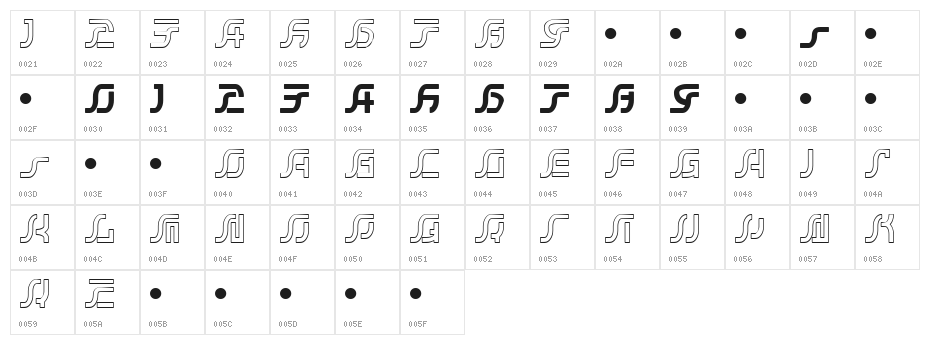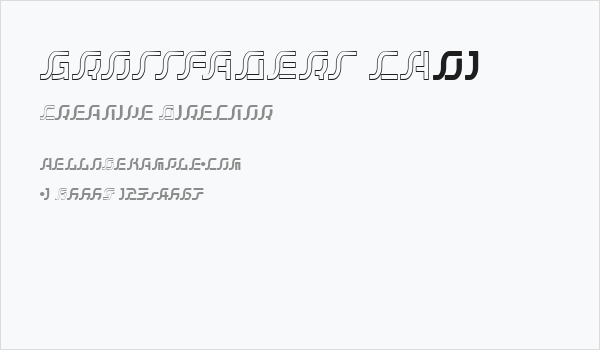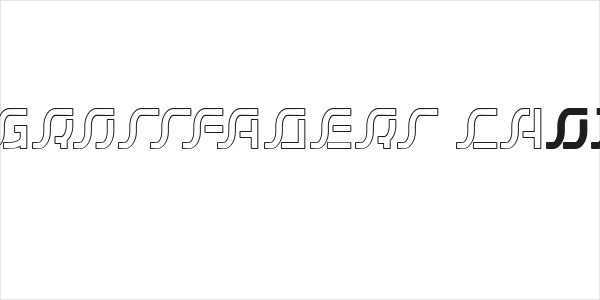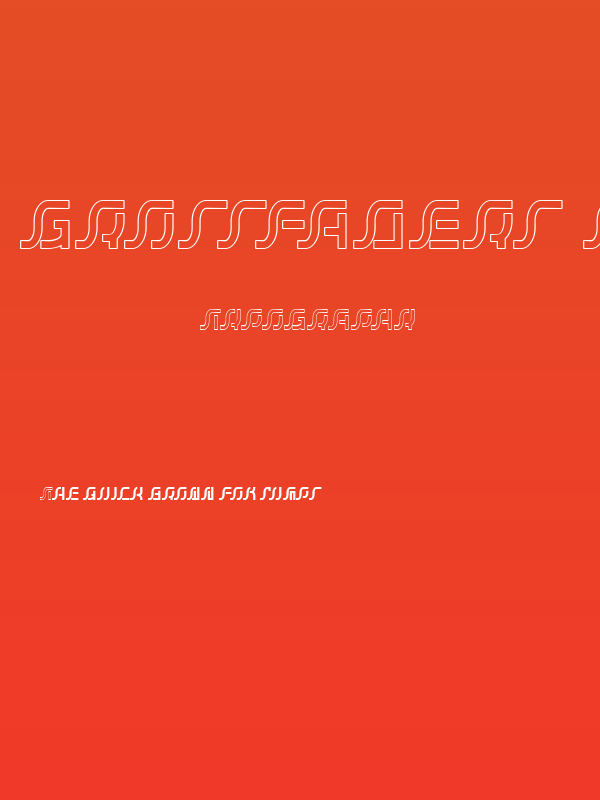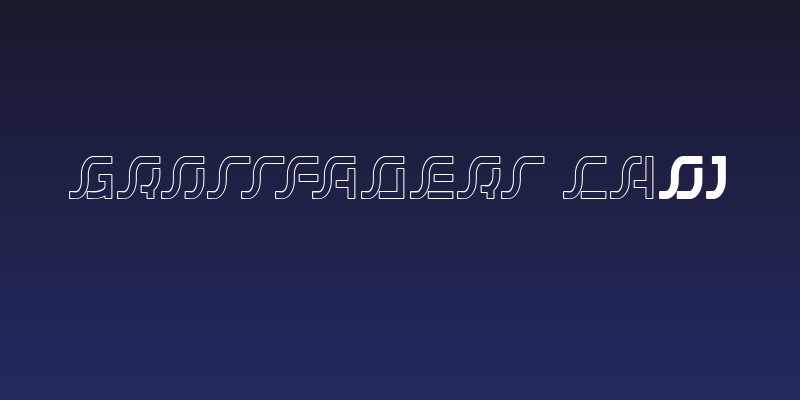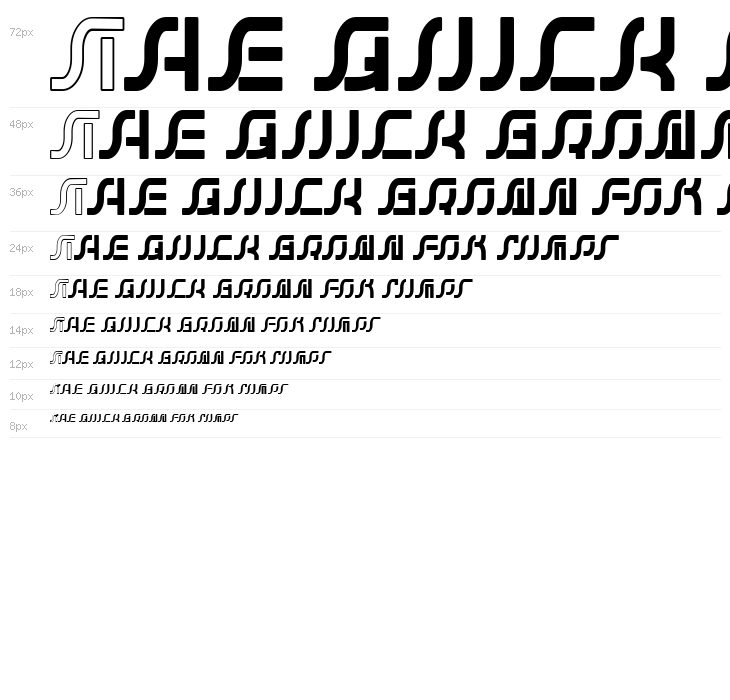
GROSSFADERS CH01 Font
GROSSFADERS CH01 Description
This font features a futuristic and geometric design, characterized by its bold and structured letterforms. The characters are composed of thick lines with rounded edges, creating a sense of movement and modernity. The uppercase and lowercase letters share a consistent style, with a focus on symmetry and balance. The numbers and special characters maintain the same aesthetic, ensuring uniformity across all glyphs. The font's unique style makes it stand out, offering a visually striking appearance that is both contemporary and versatile.
| Proposed Projects | Ideal for sci-fi themed projects, modern branding, digital artwork, and innovative product packaging. |